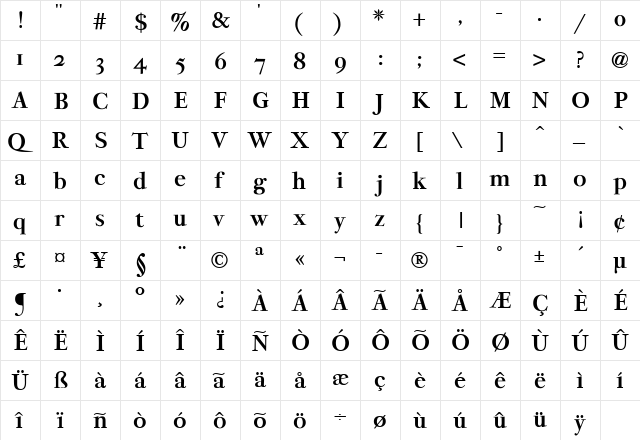
AIOberon Bold Font Preview
AIOberon Bold
AIOberon Bold Font Details
Design Context for AIOberon Typeface
AIOberon offers clean, dependable letterforms without strong stylistic allegiance, making it a practical choice for designers who need flexibility. Its bold stroke weight gives it real presence on the page.
Pro Tip: Pair AIOberon with a font of contrasting weight or personality to build a more expressive typographic hierarchy.